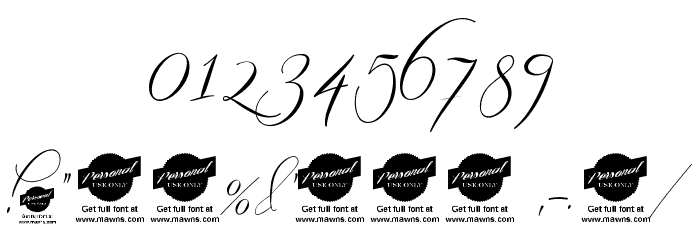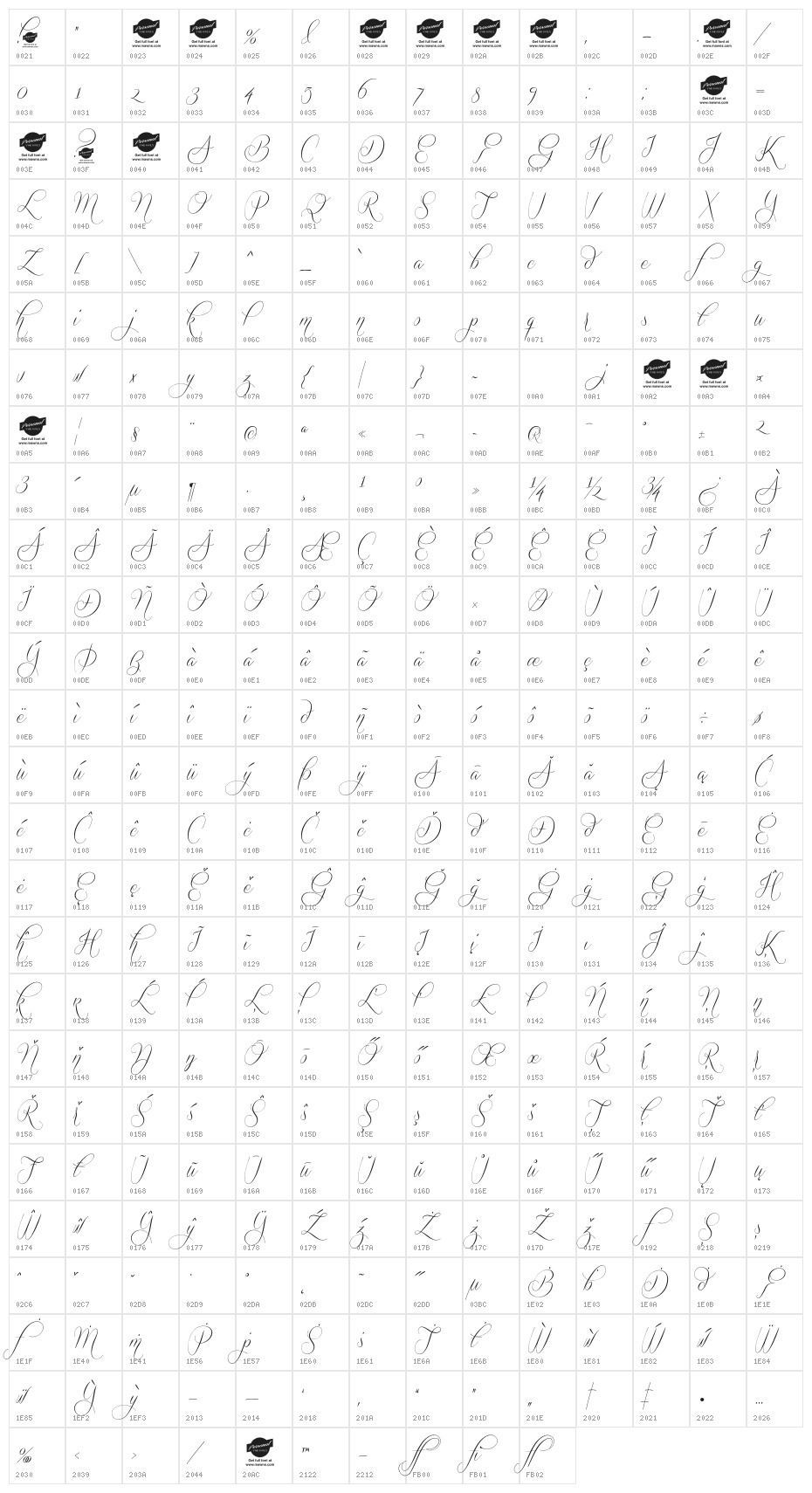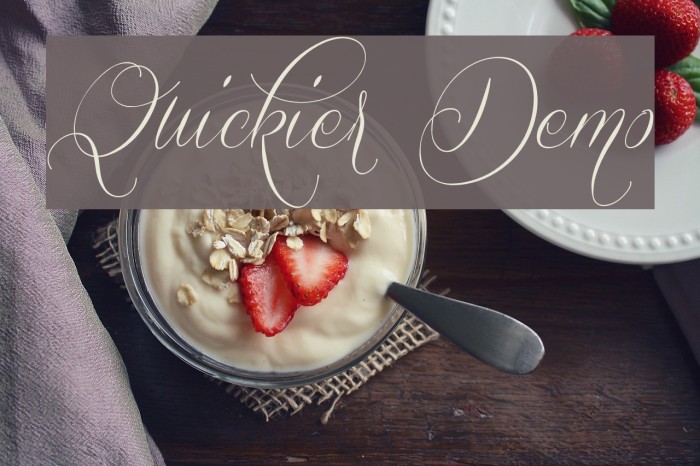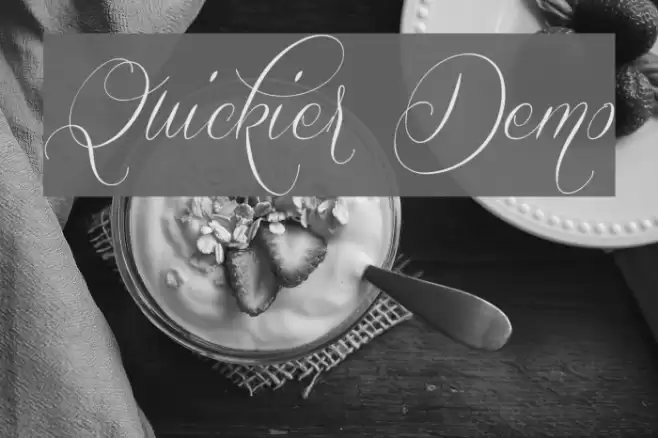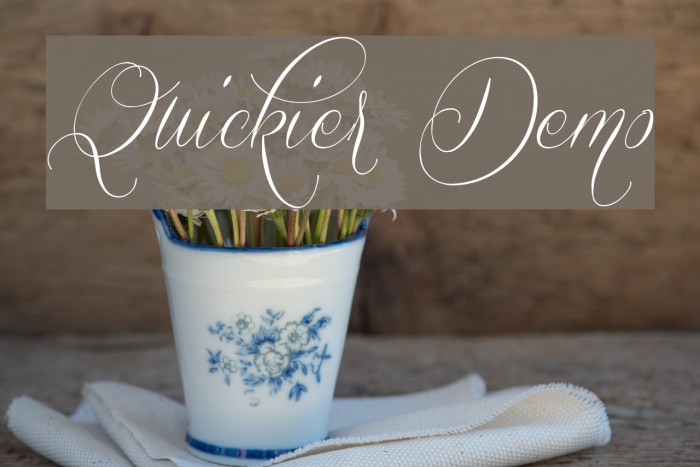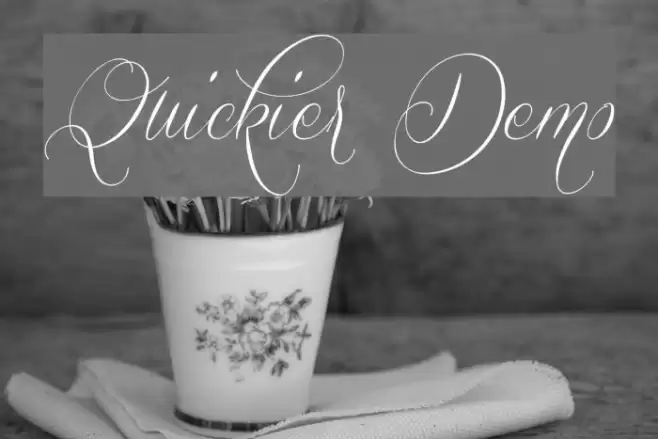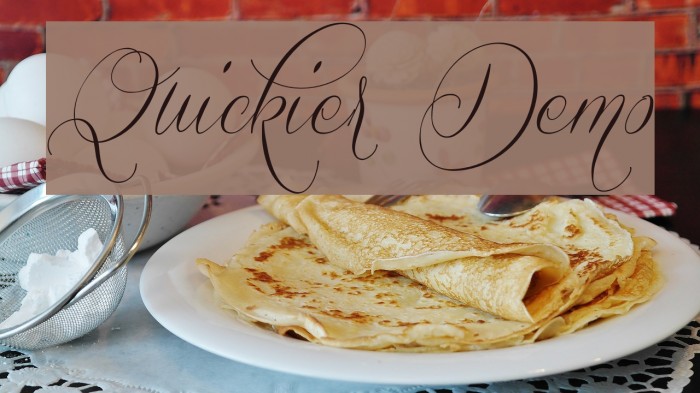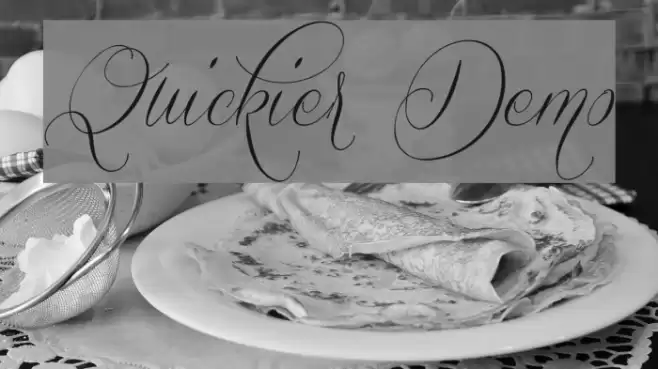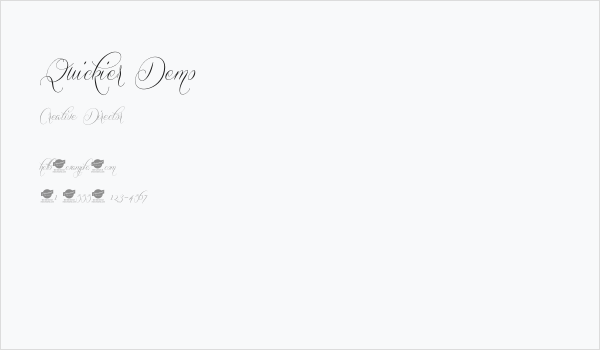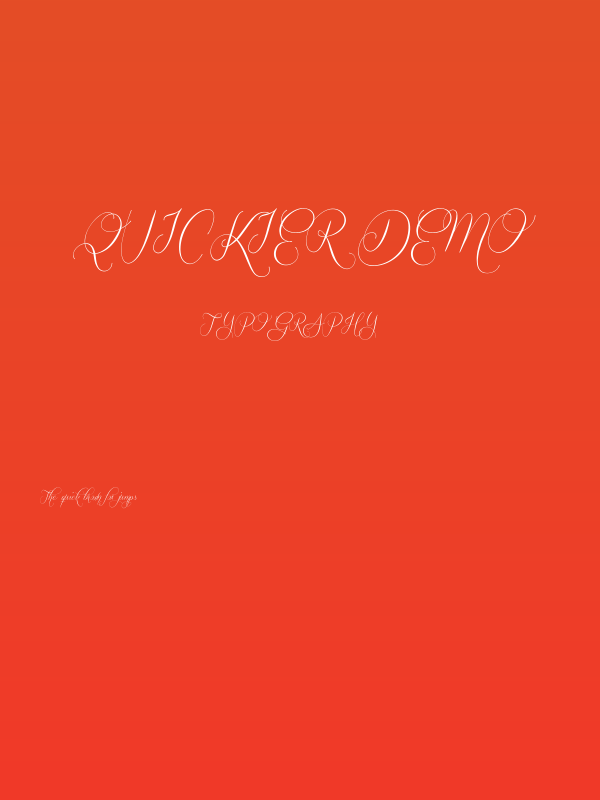
Quickier Demo Font
Quickier Demo Description
This font exudes elegance and sophistication with its flowing, cursive style. The uppercase letters are characterized by their graceful loops and swirls, giving a sense of movement and fluidity. The lowercase letters maintain a consistent style, with some characters featuring elaborate flourishes that add to the overall decorative appearance. The numerals are designed with a similar flair, ensuring a cohesive look across all characters. This font is ideal for projects that require a touch of class and refinement, such as wedding invitations or high-end branding materials.